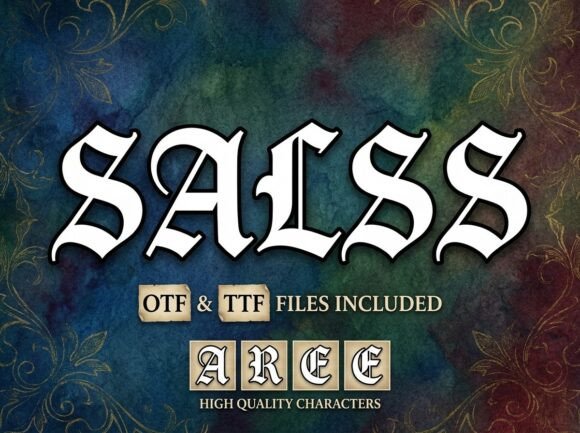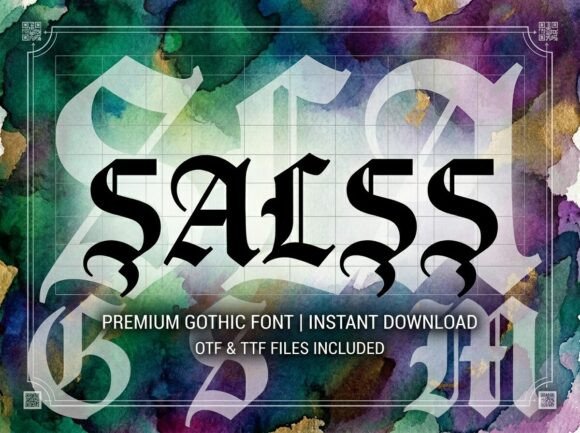
Introduction to Salss Font Font
Fonts play a crucial role in design, and the Salss Font font is a typeface that brings both character and versatility to any project. Whether you’re working on a branding project, a website, or a print design, the Salss Font font offers a unique style that can elevate your work.
Evoke the spirit of the medieval scribe with Salss, a powerful Blackletter display font that captures a “gothic-and-commanding” soul.
This font features bold, angular letterforms characterized by rhythmic, sharp terminals and a classic Fraktur-inspired structure that radiates historic prestige With its heavy structural weight and dramatic personality, Salss is the premier choice for independent craft brewery branding, heavy metal band logos, gothic-themed gaming assets, and high-impact “dark-and-distinguished” social media headers.
Key Features of Salss Font Font
Why Choose Salss Font Font?
The Salss Font font is more than just a typeface – it’s a design tool that helps you communicate your message with style and clarity. Its unique character set and versatile design make it suitable for a wide range of applications, from elegant invitations to bold headlines.
With its carefully crafted letterforms and balanced proportions, the Salss Font font ensures readability and visual appeal across all mediums.
What makes Salss Font font special?
The Salss Font font stands out with its unique design, exceptional readability, and versatility across various design applications.